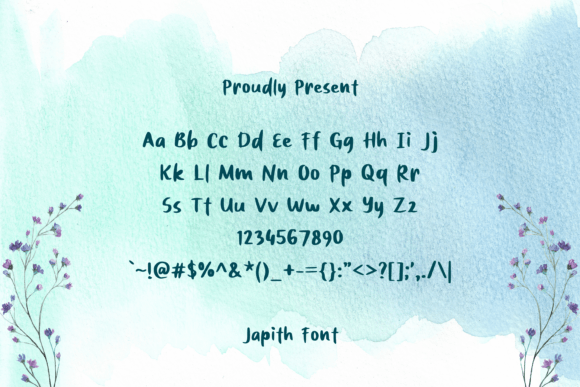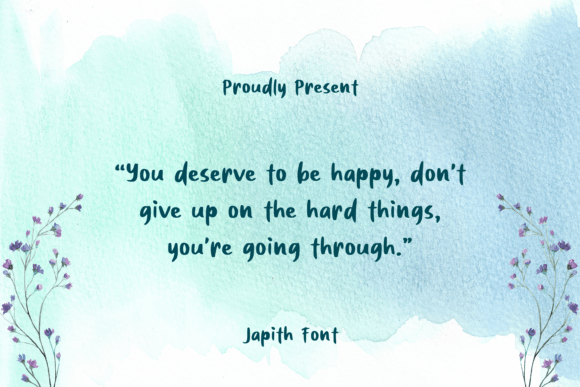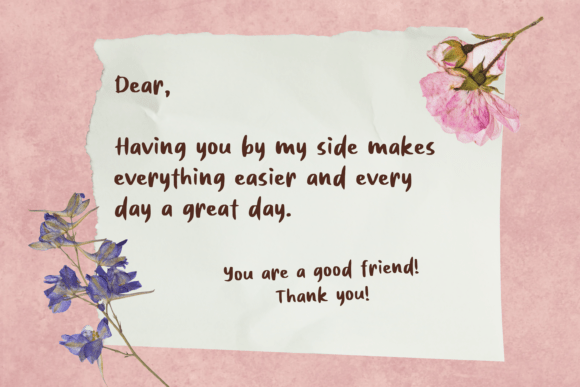
Introduction to Japith Font
As you sit down to craft a heartfelt greeting for a loved one, the right font can make all the difference. The scribble of a pen on paper, the gentle curve of a handwritten letter – it’s a moment that never fails to bring a smile to our faces. But, what if you could infuse that same warmth and charm into your digital creations? Enter the Japith Font, a beautifully crafted handwriting font that’s sure to capture the essence of handwritten love.
For designers, Japith Font is a valuable design resource that offers a high-quality, free download option, perfect for adding a personal touch to your creative projects. With its transparent background and delicate strokes, Japith Font is a versatile tool that can be used in a variety of contexts, from wedding invitations to heartfelt birthday cards.
Key Features of Japith Font
- Features a transparent background, allowing for seamless integration with any design
- Designed with precision, ensuring crisp and clear typography at high resolutions (up to 300 DPI)
- Comes in a range of styles and weights, perfect for adding depth and variety to your design
Honest Review: Japith Font
As a designer, I’ve come across numerous fonts, but the Japith Font caught my attention. It’s a unique, high-quality design resource perfect for creative projects.
- ✨ High quality and crisp typography, making it perfect for digital designs.
- ✨ A wide range of weights and styles, allowing for versatility in design applications.
- ✨ Suitable for various design elements, including headings, titles, and body text.
- ⚠️ The font’s availability is limited to digital designs, making it less suitable for print-based projects.
- ⚠️ The font may not be compatible with all operating systems or software, so be sure to test it before use.
- ⚠️ The transparent background might not work well with all design elements or backgrounds.
Overall, I’m impressed with the Japith Font’s potential for creative projects. While it has some limitations, its high quality and versatility make it a valuable addition to any designer’s toolkit.
Tips for Getting the Most Out of Japith Font
To get the most out of the Japith Font, try experimenting with different font sizes, colors, and combinations. You can also use the font in conjunction with other design elements to create unique and eye-catching designs.
Common Use Cases for Japith Font
The Japith Font is commonly used in a variety of creative projects, including graphic design, digital art, and typography. Its high-quality design and transparent background make it a popular choice for designers and artists.